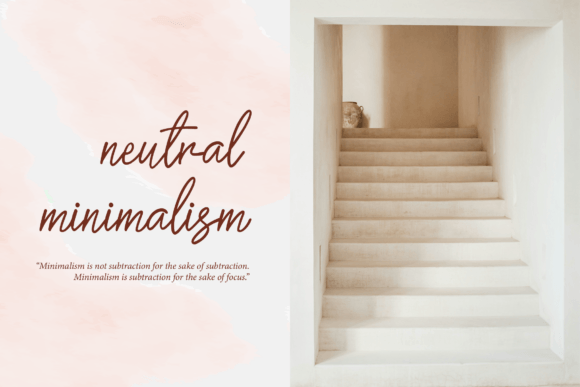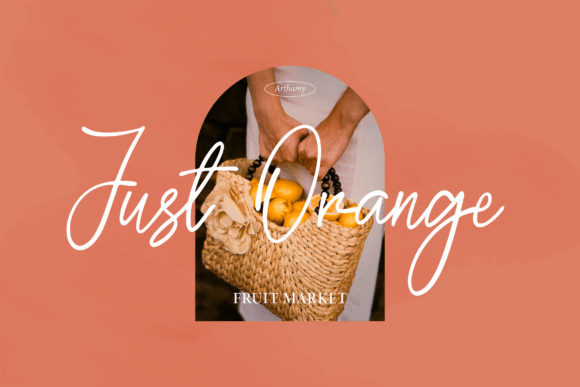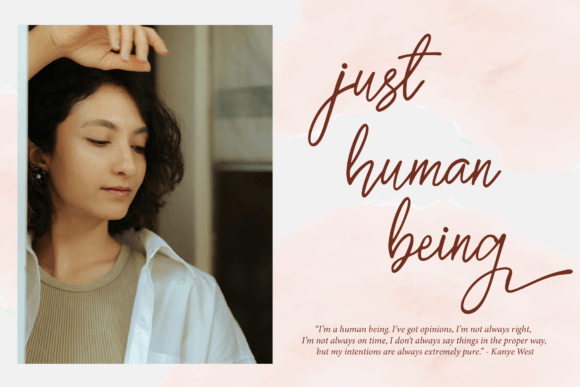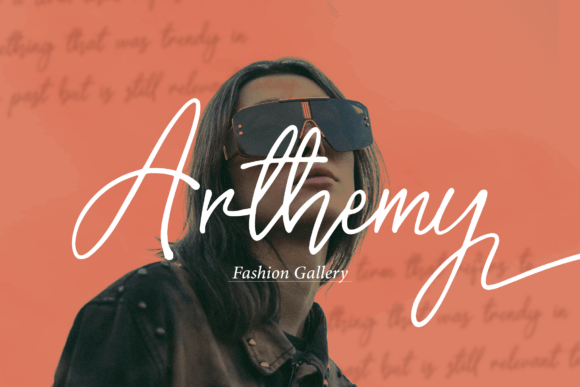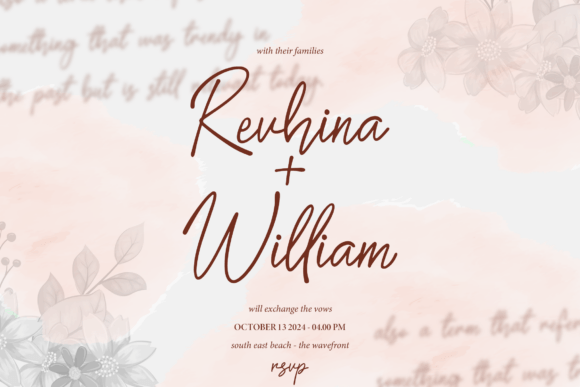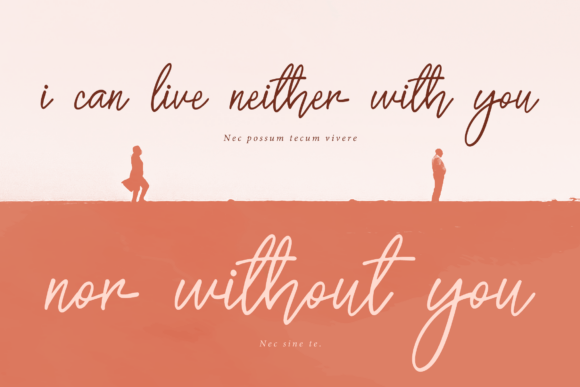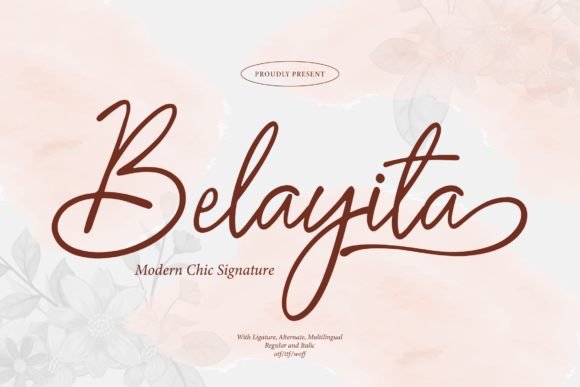
Belayita Font: Elevate Your Designs with Elegance and Sophistication
In the world of digital design, typography plays a crucial role in conveying the tone and personality of a brand or project. Among the numerous fonts available, Belayita stands out as a stylish and modern handwritten signature font that can add an elegant and personal touch to your designs. With its smooth and chic lettering, Belayita is perfect for designers and crafters looking to give their work a classy, sophisticated feel.
What Makes Belayita Font Special?
Belayita is a unique and eye-catching font that boasts a distinctive handwritten signature style. Its elegant and fluid lettering makes it perfect for a variety of design applications, including logos, invitations, social media posts, and more. Whether you’re a professional designer or a crafty DIY enthusiast, Belayita is an excellent choice for anyone looking to add a touch of sophistication to their work.
Key Features of Belayita Font
- Handwritten Signature Style: Belayita’s handwritten signature style gives it a personal and elegant feel, making it perfect for designs that require a touch of sophistication.
- Smooth and Chic Lettering: The font’s smooth and chic lettering makes it easy to read and visually appealing, ensuring that your designs stand out from the crowd.
- Modern and Stylish: Belayita’s modern and stylish design makes it perfect for contemporary designs that require a fresh and trendy feel.
- Versatile: Belayita is a versatile font that can be used for a variety of design applications, including logos, invitations, social media posts, and more.
Use Cases for Belayita Font
Belayita’s versatility and elegance make it suitable for a wide range of design applications. Here are some use cases where Belayita can shine:
- Logos: Use Belayita to create a sophisticated and elegant logo for your brand, giving it a personal and professional touch.
- Invitations: Add a touch of class to your invitations, whether it’s for a wedding, birthday party, or corporate event, with Belayita’s smooth and chic lettering.
- Social Media Posts: Elevate your social media posts with Belayita’s modern and stylish design, making them stand out from the crowd.
- Stationery: Use Belayita to create elegant and sophisticated stationery, including business cards, letterheads, and more.
Tips for Using Belayita Font Effectively
To get the most out of Belayita, here are some tips for using it effectively in your designs:
- Pair it with Neutral Colors: Belayita’s elegant design pairs well with neutral colors like black, white, and gray. Use these colors to create a sophisticated and elegant look.
- Experiment with Sizes: Belayita’s smooth and chic lettering looks great in various sizes. Experiment with different sizes to find the one that works best for your design.
- Add a Personal Touch: Belayita’s handwritten signature style makes it perfect for adding a personal touch to your designs. Use it to create a unique and eye-catching design that reflects your personality.
Belayita font is a stylish and modern handwritten signature font that can elevate your designs with elegance and sophistication. Its smooth and chic lettering makes it perfect for a variety of design applications, including logos, invitations, social media posts, and more. With its versatility and elegance, Belayita is an excellent choice for designers and crafters looking to add a touch of class to their work. So why wait? Give Belayita a try and take your designs to the next level!